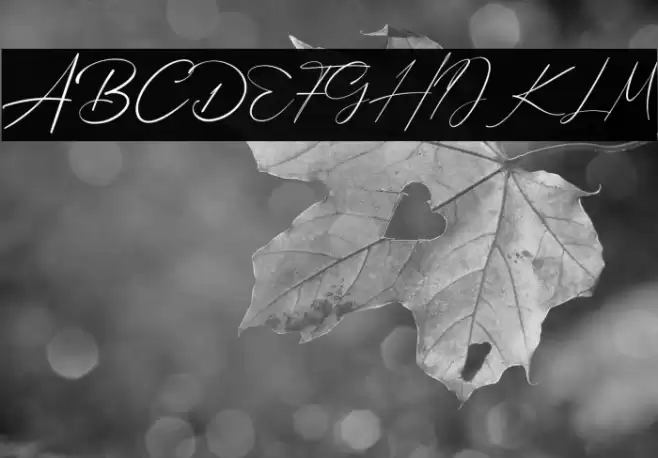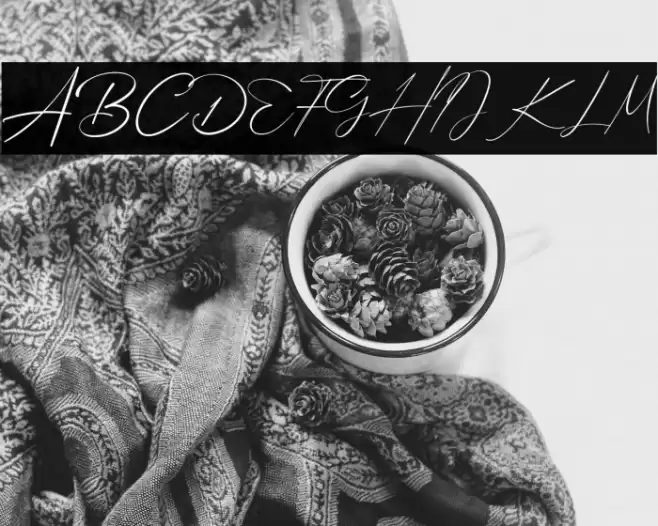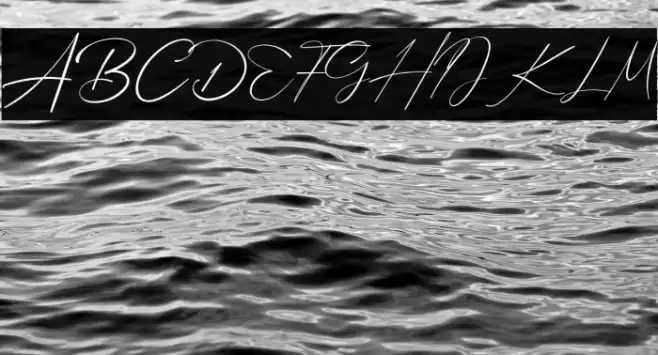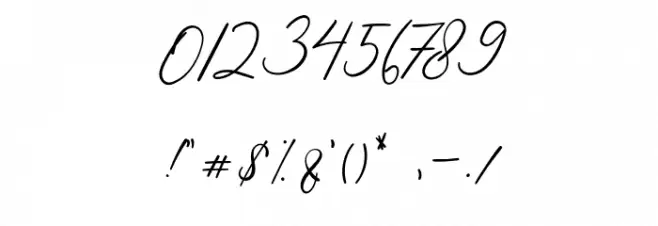
Bellamy Signature Font
Bellamy Signature Description
This font exudes elegance and sophistication with its fluid, cursive style. The letters are gracefully interconnected, creating a seamless flow that mimics the natural movement of handwriting. The uppercase letters are particularly striking, with elongated strokes and delicate curves that add a touch of drama. The lowercase letters maintain a consistent style, offering a harmonious balance between readability and artistic flair. The numerals and special characters are crafted with the same attention to detail, ensuring a cohesive look across all elements. This font is perfect for projects that require a personal, handwritten touch, such as invitations, branding, and logos.
An elegant, cursive font with fluid, interconnected strokes from Uncategorized fonts.
- Font: Bellamy Signature
- Proposed Projects: Ideal for wedding invitations, personal branding, elegant logos, and stationery design.
- Overall Style: Elegant, Handwritten
- Use Case: Logos, Invitations, Personal Branding